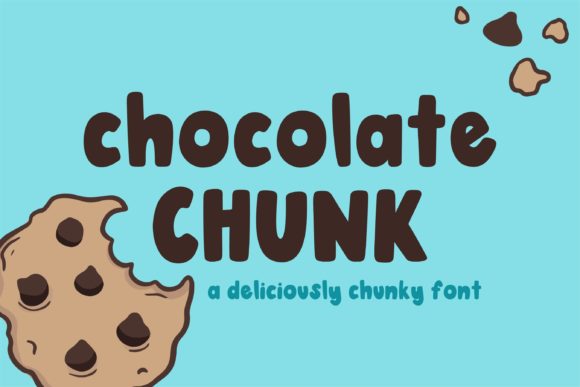
Introducing Chocolate Chunk Font, the delectable font that will add a touch of sweetness to your designs! With its playful and chunky sans serif characters, this font is a treat for the eyes, perfect for adding a whimsical touch to any project.
Immerse yourself in a world of typography indulgence with Chocolate Chunk Font. Its thick, rounded letters dance across the page, creating a captivating visual experience that will make your designs stand out from the crowd. Whether you're a seasoned designer or just starting your creative journey, this font is a must-have for adding a touch of fun and personality to your work.
Unleash your creativity with Chocolate Chunk Font, the perfect font for adding a touch of charm to invitations, cards, posters, and more. Its versatile nature makes it suitable for a wide range of projects, from playful designs to elegant branding materials. Let your imagination run wild and create something extraordinary with Chocolate Chunk Font!
With its irresistible charm and delicious curves, Chocolate Chunk Font is the perfect font for adding a touch of sweetness to your life. Its playful personality will bring a smile to your face and inspire you to create designs that are both beautiful and memorable.